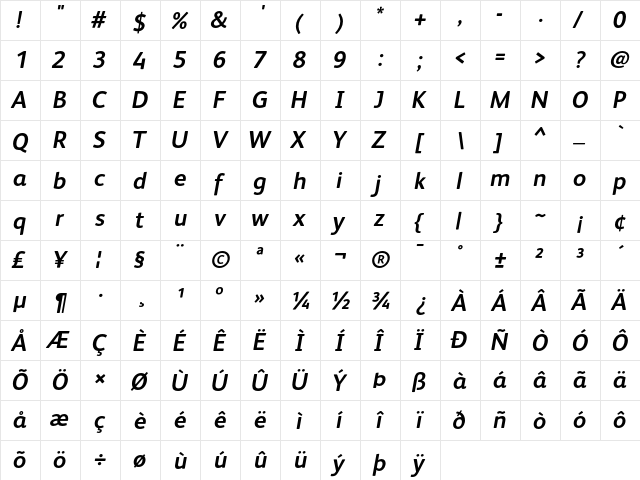
FSAlbert Bold Italic
Design Context for FSAlbert Typeface
FSAlbert is a composed and adaptable typeface that performs quietly and consistently across a wide range of design contexts. The slanted form adds forward momentum and visual energy. Its bold stroke weight gives it real presence on the page.
Pro Tip: Try FSAlbert for annotation and caption copy alongside an upright companion — the contrast in angle creates a dynamic but ordered typographic system.